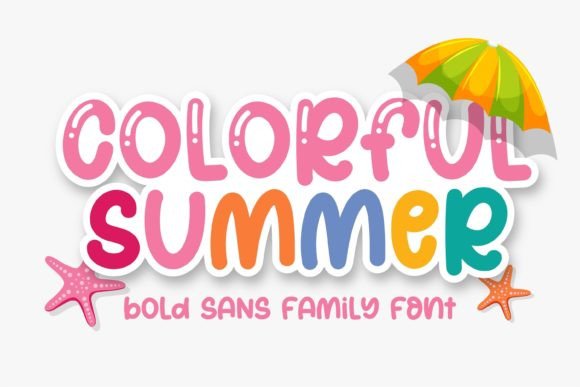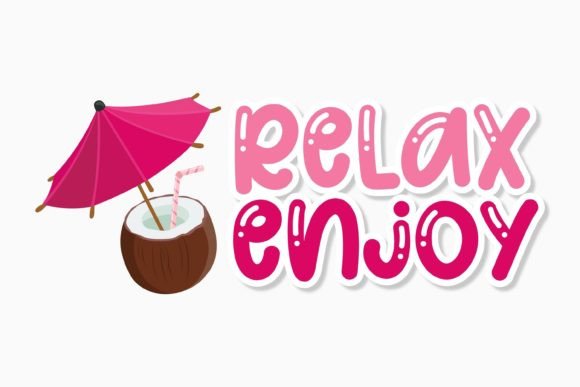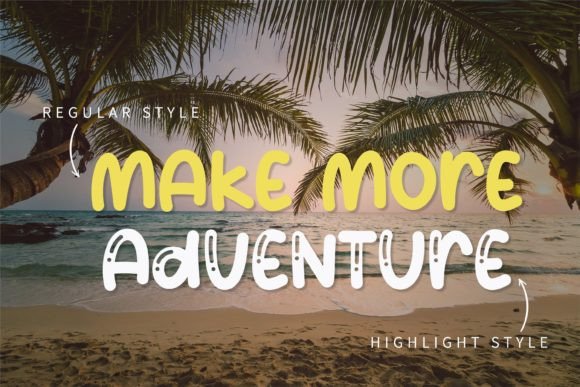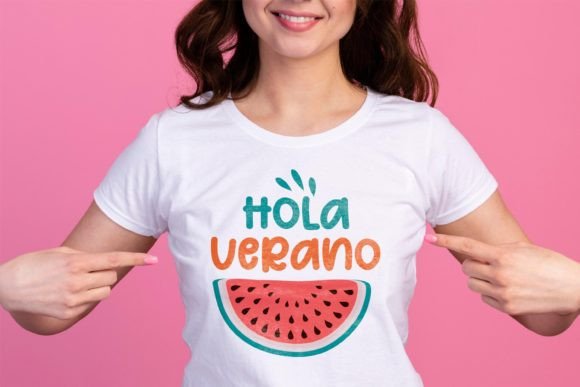
Colorful Summer Font
About the Colorful Summer Font
Make a bold statement with Colorful Summer Font, a powerful and memorable font. Colorful Summer is a sweet and cute display font. Fall in love with its incredibly versatile style and use it to create fun wedding invitations, beautiful stationary art, eye-catching social media posts, and much more!
Colorful Summer’s playful, rounded forms make it ideal for headlines, short text blocks on packaging, and social media graphics where a friendly, approachable aesthetic is desired. It works exceptionally well for branding projects targeting a younger demographic or those focused on summery, lighthearted themes. Avoid using it for body text or lengthy paragraphs; its charm is best displayed in short, impactful bursts.
Pairings with clean sans-serif fonts like Open Sans or Lato create a balanced contrast, tempering Colorful Summer’s sweetness with a touch of modern sophistication. Alternatively, a classic serif such as Playfair Display can add a touch of elegance, creating a more refined and sophisticated feel. Avoid pairing it with other highly decorative or script fonts, as this could overwhelm the design.
The font’s overall personality is undeniably cheerful and approachable, conveying a sense of fun and lightheartedness. It’s best suited for projects that require a friendly, optimistic tone, such as children’s products, summer-themed events, or brands emphasizing playfulness and creativity.
Colorful Summer Font Usage Examples
Colorful Summer Font Example